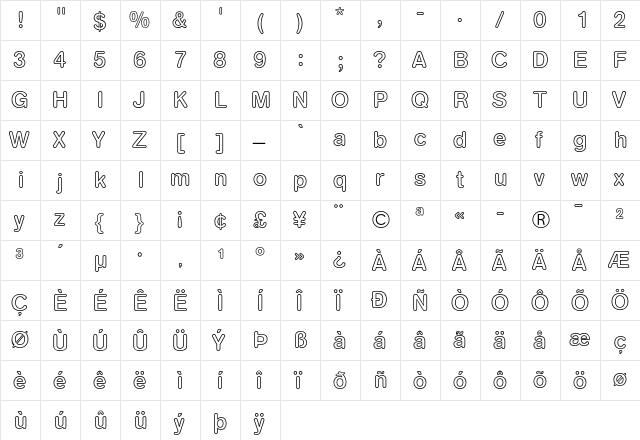
AG Book Rounded Medium Outline
Design Context for AG Book Rounded Typeface
AG Book Rounded is built around its visual character rather than neutral utility — its distinctive forms are designed to make an impression at display sizes.
Font Pairing: Pair with a clean neutral sans-serif for body copy to let AG Book Rounded's character lead without overwhelming the composition.
Pro Tip: Treat AG Book Rounded as the centrepiece of your typographic hierarchy. One strong heading set in a decorative face can carry an entire layout.